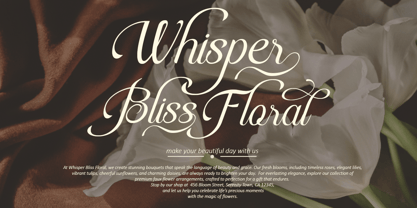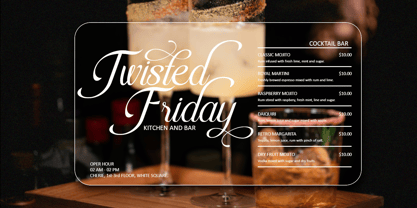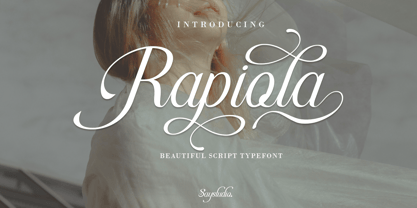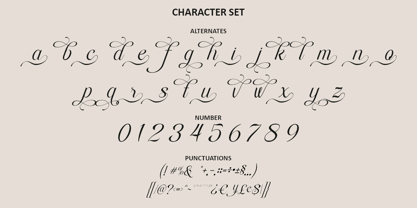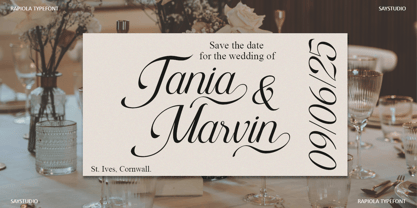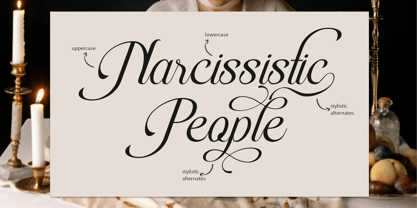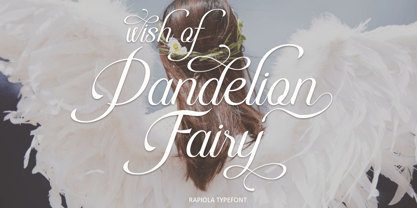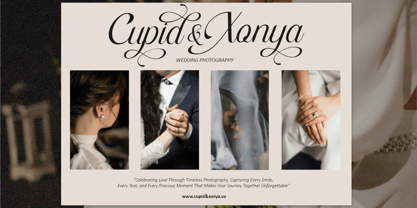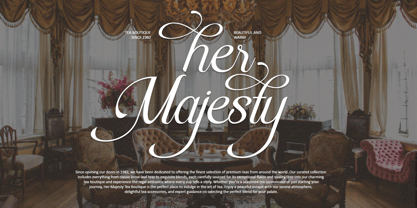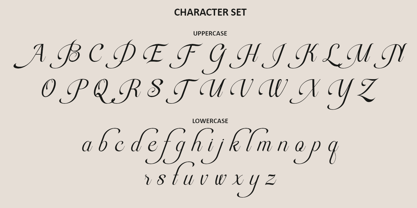
Rapiola
by Say Studio
The Rapiola Font Family was designed by Mussyayin and published by Say Studio. Rapiola contains 1 styles. More about this family
Rapiola is a elegant inspired calligraphy script font, perfect for that elegant touch needed for logos, wedding invitations, modern websites, greeting cards, and more! Included alternates lowercase custom-branded look.
Rapiola Included :
- Full Set of standard alphabet and punctuation
- Extra setaltenates lowercase
- Multilingual Character